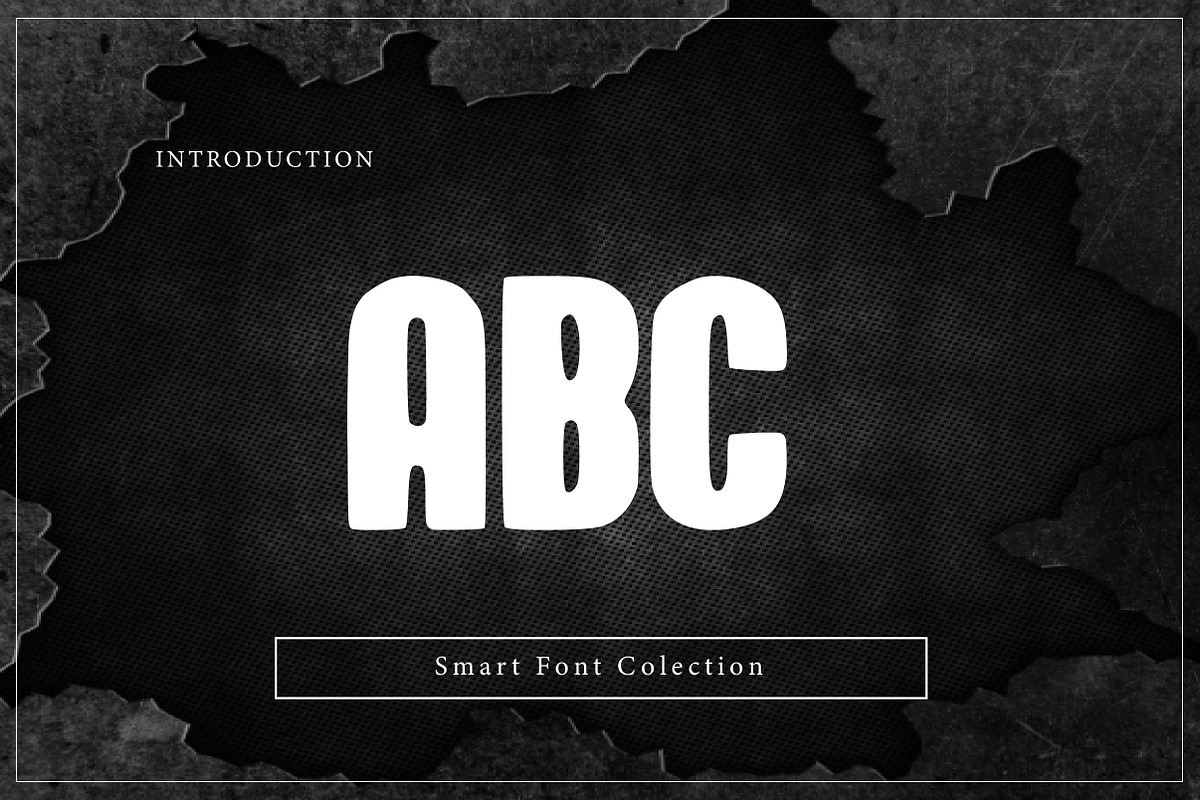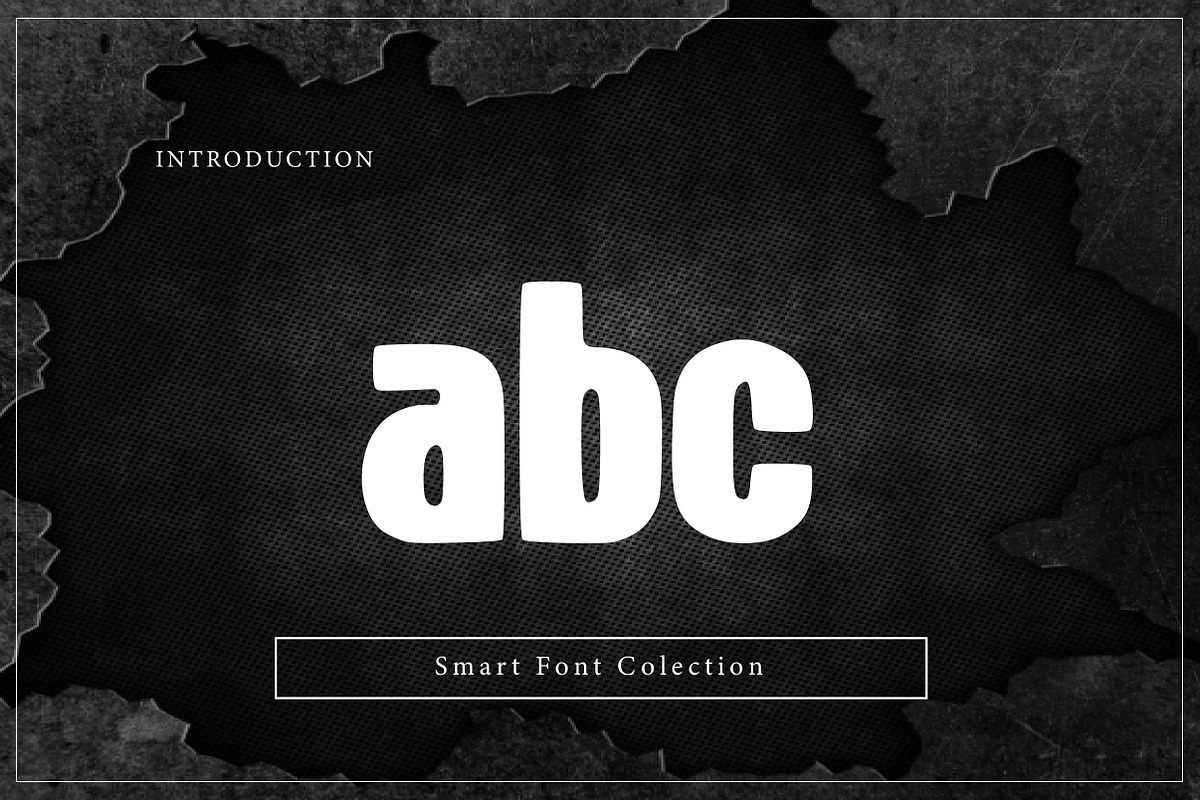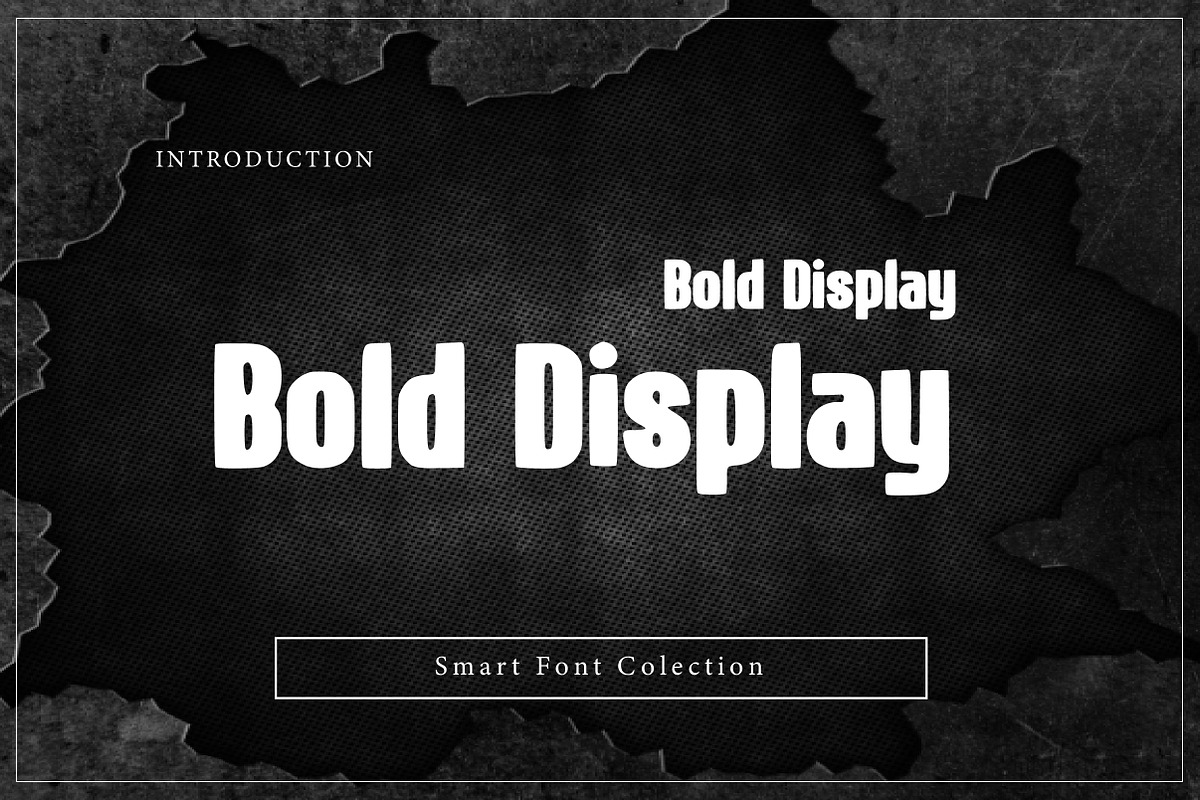
Bold Display
Bold Display is a strong and modern display font designed to deliver maximum impact and high readability. With thick strokes, clean bold shapes, and a confident presence, this font is perfect for headlines, logos, posters, branding, packaging, signage, advertising, and social media designs. Bold Display brings a powerful and energetic feel to any project, making it ideal for attention-grabbing typography and contemporary visual identities.